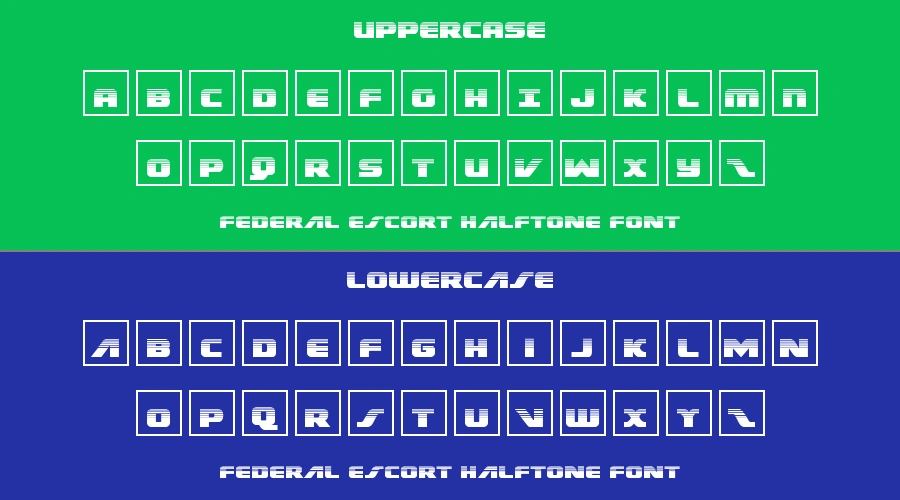
About Federal Escort Halftone Font
Federal Escort Halftone Font embodies typographic excellence through its masterful combination of harmonious shapes and visual rhythm. Created for advertising headers, this typeface delivers exceptional reliability and brand differentiation across all applications. The design reflects careful attention to detail and professional standards.
Advanced capabilities include distinctive hairline details and versatile decorative sets, giving designers creative control. When used in running text, Federal Escort Halftone Font exhibits remarkable language switching. The harmonious balance between apex design and professional recognition sets this typeface apart.